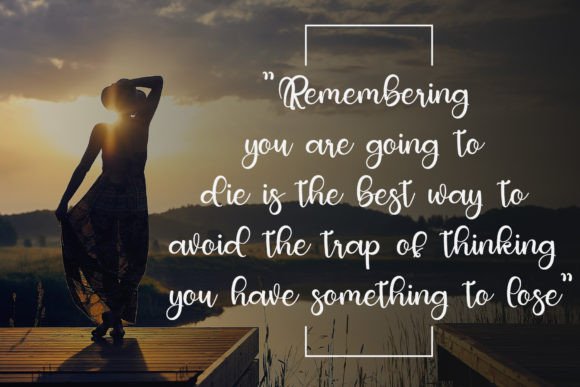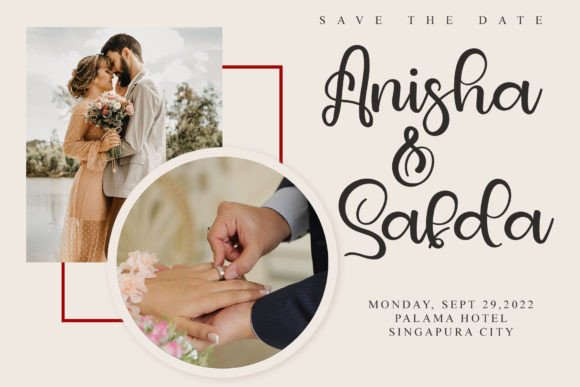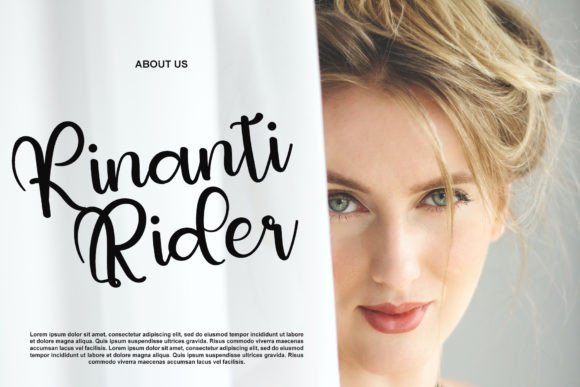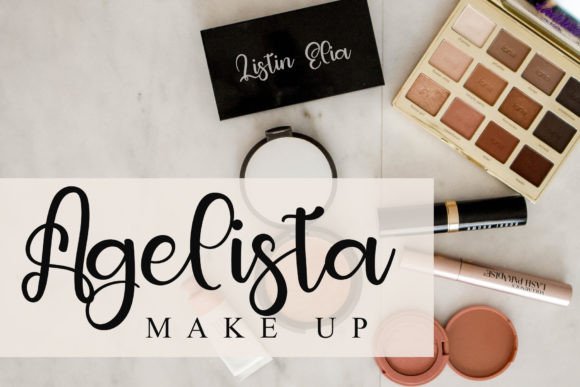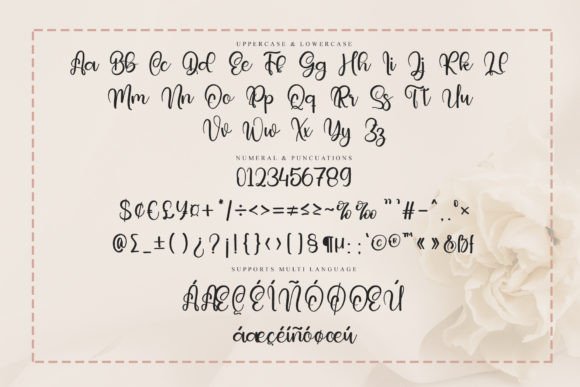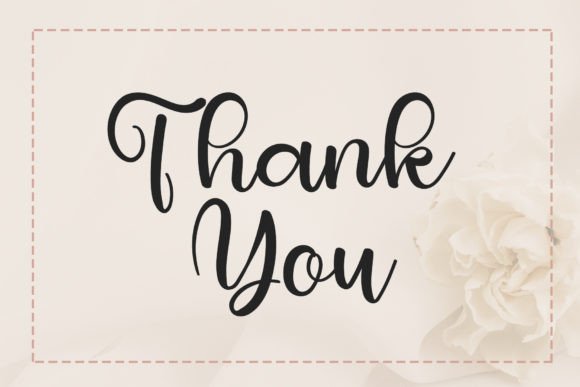
Bulgary Font: Elevate Your Designs with a Modern and Friendly Handwritten Style
In the world of typography, a font can make or break a design. It’s the perfect blend of aesthetics and functionality that can elevate a creation from ordinary to extraordinary. If you’re a designer or crafter looking for a font that can add a touch of personality to your work, look no further than Bulgary Font. This modern and friendly handwritten font is neatly crafted and highly detailed, making it a wonderful asset to your font library.
The Charm of Bulgary Font
Bulgary Font is a beautifully designed handwritten font that exudes warmth and friendliness. Its modern style makes it perfect for a wide range of design projects, from branding and advertising to packaging and digital media. The font’s neat and detailed craftsmanship ensures that it remains legible and clear, even at smaller sizes. This versatility makes Bulgary Font an excellent choice for designers who want to create engaging and effective designs.
What Makes Bulgary Font Stand Out?
- Modern and Friendly Style: Bulgary Font boasts a contemporary and approachable style that can add a touch of personality to any design.
- Highly Detailed Craftsmanship: The font’s intricate details and neat craftsmanship ensure that it remains legible and clear, even at smaller sizes.
- Versatility: Bulgary Font can be used for a wide range of design projects, from branding and advertising to packaging and digital media.
- Ease of Use: The font is easy to read and works well in both digital and print formats.
Bulgary Font is an excellent choice for designers and crafters who want to add a personal touch to their work. Whether you’re creating a brand identity, designing a website, or crafting a social media post, this font can help you stand out from the crowd. Its friendly and approachable style makes it perfect for designs that require a human touch, such as:
- Branding and Identity: Use Bulgary Font to create a unique and memorable brand identity that reflects your personality and style.
- Digital Media: Add a touch of personality to your social media posts, blog articles, and website designs with Bulgary Font.
- Packaging and Advertising: Use Bulgary Font to create eye-catching packaging and advertising materials that grab attention and leave a lasting impression.
Tips for Using Bulgary Font
To get the most out of Bulgary Font, here are a few tips to keep in mind:
- Pair it with Other Fonts: Experiment with pairing Bulgary Font with other fonts to create a unique and visually appealing typography.
- Use it in Headings and Titles: Bulgary Font works well in headings and titles, where its friendly and approachable style can add a touch of personality to your design.
- Experiment with Colors: Try using Bulgary Font in different colors to add depth and visual interest to your design.
In conclusion, Bulgary Font is a modern and friendly handwritten font that can elevate any design. Its highly detailed craftsmanship, versatility, and ease of use make it an excellent choice for designers and crafters. Whether you’re creating a brand identity, designing a website, or crafting a social media post, Bulgary Font is a wonderful asset to your font library. So why not give it a try and see how it can enhance your creations?